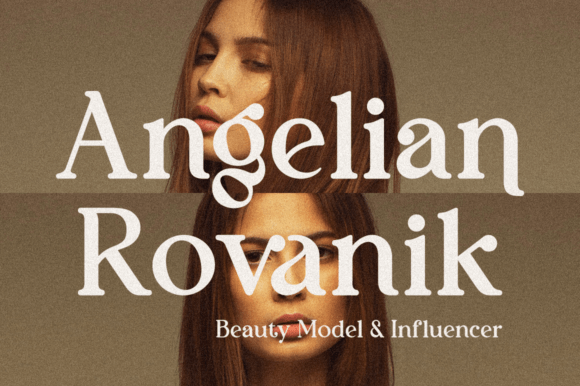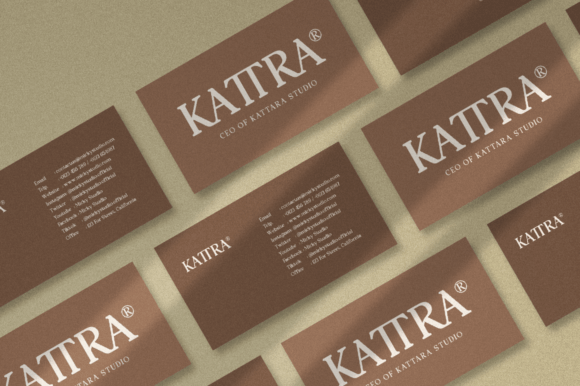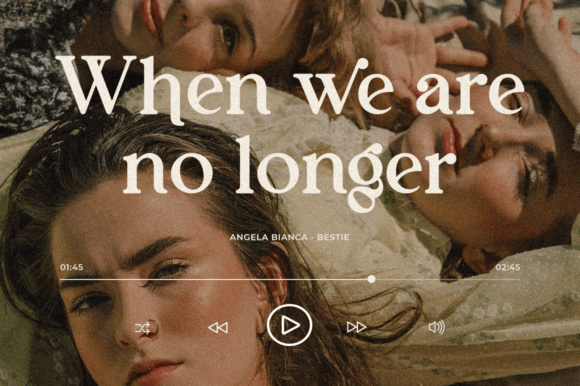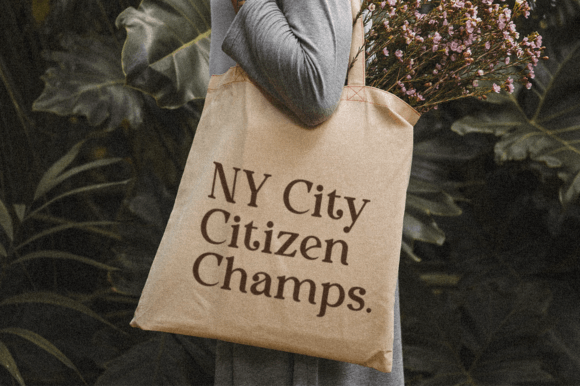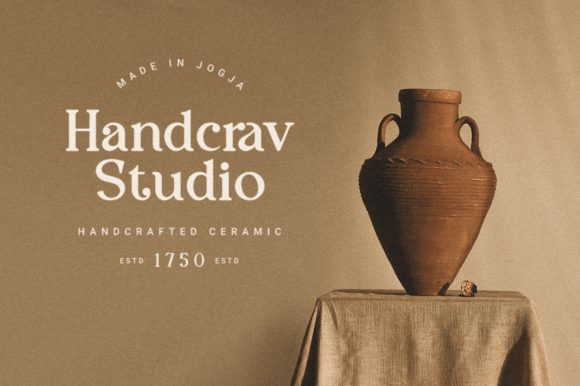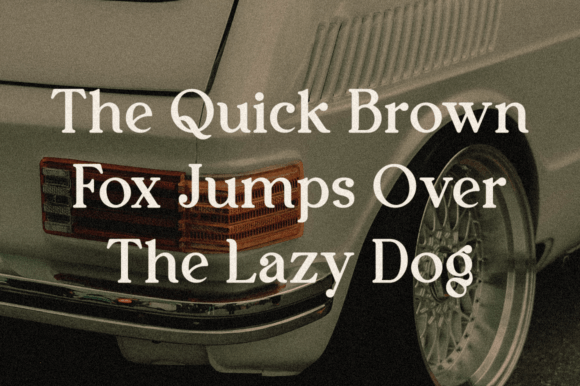
Introduction to Oranges Font
Have you ever found yourself scrolling through design inspiration boards, only to land on a beautiful typography piece that completely stops you in your tracks? That’s exactly what happened to me the other day. The elegant curves and refined lines of a particular design caught my eye, and I was immediately drawn to the font being used – Oranges Font.
As a designer myself, I know how valuable it is to have access to high-quality design resources like the Oranges Font. With its simple yet distinct style, this font has the potential to elevate any creative project from good to great. Whether you’re working on a new logo, branding, or simply need a font for a blog post, the Oranges Font is a great addition to your design arsenal.
And the best part? The Oranges Font is available for free download, making it an accessible design resource for designers of all levels. In this article, we’ll take a closer look at what makes the Oranges Font so special and how you can incorporate it into your next design project, complete with a transparent background for seamless integration.
Key Features of Oranges Font
- Includes multiple font styles with a transparent background, perfect for overlaying on images or videos.
- Each font style is carefully crafted to provide a unique and eye-catching look, making it perfect for branding and advertising.
- Perfect for use in digital design, including web design, social media graphics, and mobile app design.
Honest Review: Oranges Font
I recently stumbled upon the Oranges Font while searching for free downloads for a creative project. I must say, I was quite impressed with the quality of this design resource. The Oranges Font is perfect for adding a touch of elegance to your designs.
- High quality and crisp typography
- Transparency options for backgrounds
- Perfect for creative projects, especially those that require a vintage or retro feel
One of the things I love about the Oranges Font is its versatility. It’s great for both digital and print designs, making it a valuable addition to any designer’s toolkit.
- Limited font styles available (only a few weights and styles)
- Not ideal for modern or minimalist designs
Overall, I’d say the Oranges Font is a solid choice for designers looking for a high-quality, free download to add some flair to their creative projects. Just be aware of its limitations, and you’ll be golden.
Tips for Getting the Most Out of Oranges Font
To get the most out of Oranges Font, use it on a transparent background to create a clean and modern design. You can also experiment with different font sizes and colors to add visual interest to your project.
The Oranges Font is commonly used for graphic design, branding, and digital marketing projects. It’s perfect for creating eye-catching logos, brochures, and social media graphics.
Compared to Oranges Font, Great Vibes offers a more modern and edgy look, making it suitable for designs that require a bold statement. It’s also available for free download, making it a great design resource for designers on a budget.